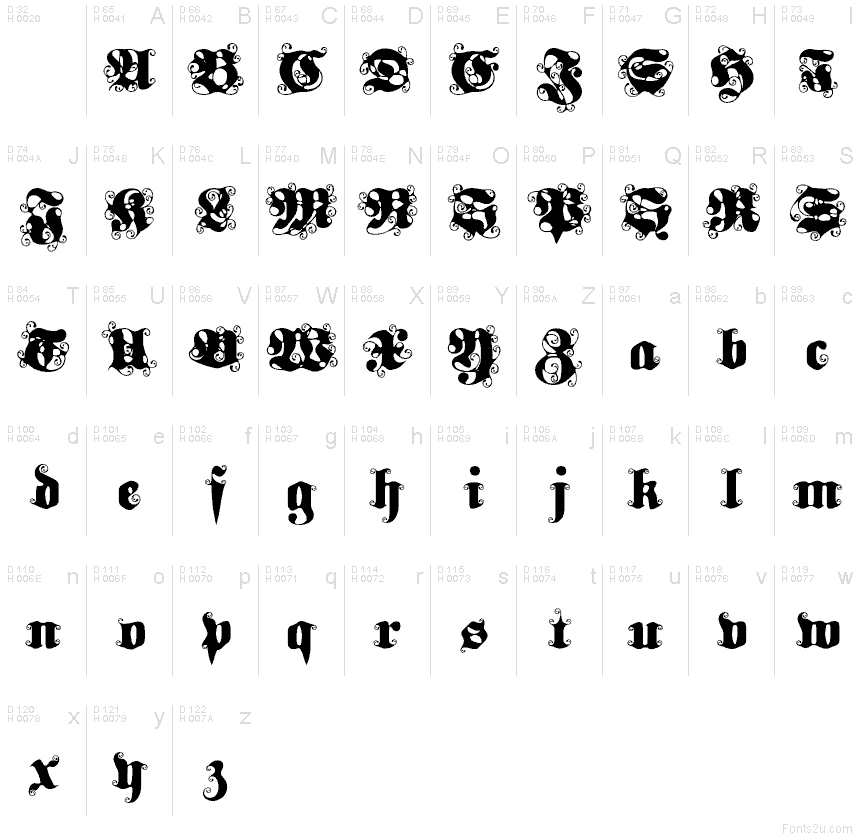
CSBulmaDrawn-Regular Demo
CS Bulma font by Craft Supply Co. is a gothic, curly typeface with bold, expanded characters that create a striking presence. The historical influence and intricate embellishments exude a dramatic flair to any design while the ornate details give the font its distinctive look. Gothic in style, CS Bulma is both classical and modern free display font.
CS Bulma Drawn Demo